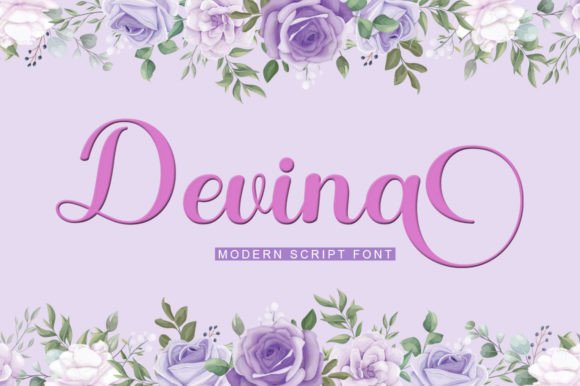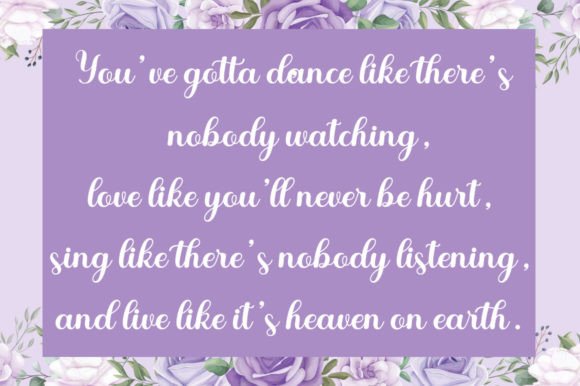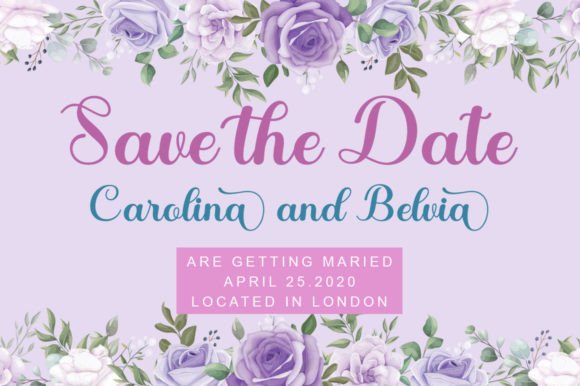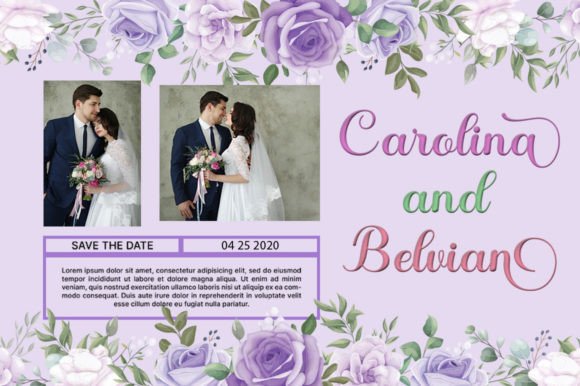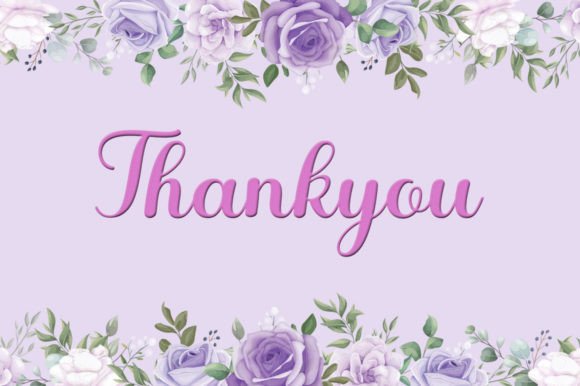
Devina Font
About Devina Font
“Devina” is a sweet, versatile, and flexible handwritten font that adds a touch of romance and cheerfulness to your design projects. This font is perfect for a wide range of applications, including logos, titles, corporate and brand identity, and the apparel industry. With its romantic and cheerful style, “Devina” has the potential to turn your project ideas into real works of art.
The charm of “Devina” lies in its sweet and handwritten script. Its adaptable and well-crafted characters create a visually engaging and friendly experience, making it an ideal choice for projects that aim to convey a sense of versatility, cheerfulness, and creativity.
One of the standout qualities of “Devina” is its flexibility. Whether you’re using it to design memorable logos, create captivating titles, or establish a unique brand identity, this font seamlessly integrates into your creative vision.
This font’s dedication to providing a sweet and versatile look to your projects sets it apart. Whether you’re working on personal or professional endeavors, “Devina” brings a sense of romance and cheerfulness to your work that resonates with a diverse audience.
In addition, “Devina” is PUA encoded, which means you can easily access all the glyphs and swashes, giving you even more creative possibilities.
In summary, “Devina” is more than just a font; it’s a versatile and cheerful creative tool that can enhance your designs with a touch of romance and flexibility. Whether you’re a professional designer seeking a font that adds a unique charm to your projects or an enthusiast passionate about crafting and design, “Devina” is here to elevate your creative endeavors. Embrace the sweetness of “Devina,” and watch your creativity flourish with versatile and cheerful works of art.